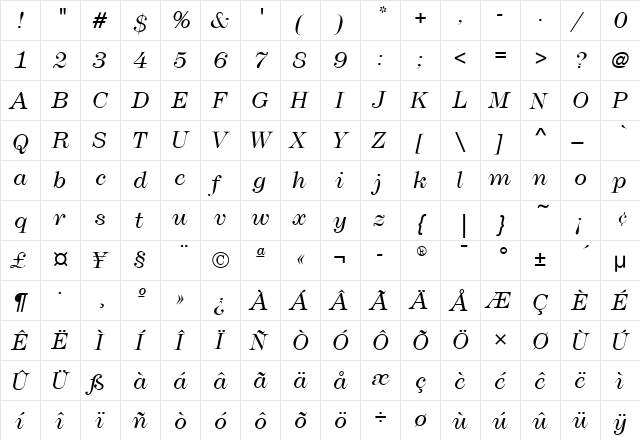
ModernTwoSixtnITC Italic Font Preview
ModernTwoSixtnITC Italic
ModernTwoSixtnITC Italic Font Details
Design Context for ModernTwoSixtnITC Typeface
ModernTwoSixtnITC takes a measured approach to typography — its balanced proportions and neutral character make it a reliable workhorse for both digital and print work. The dynamic lean of this cut emphasises speed and emphasis in any layout.
Pro Tip: Use ModernTwoSixtnITC for emphasis, pull quotes, and subheadings where its slanted energy can add rhythm to the layout.